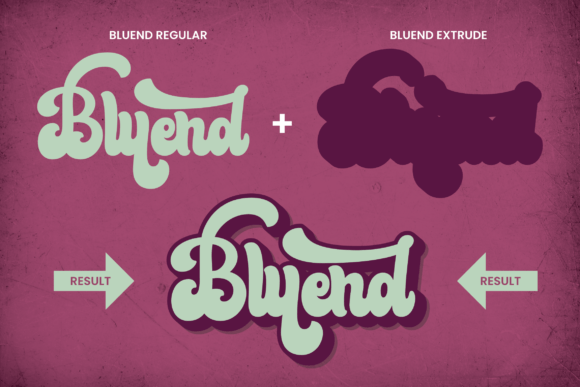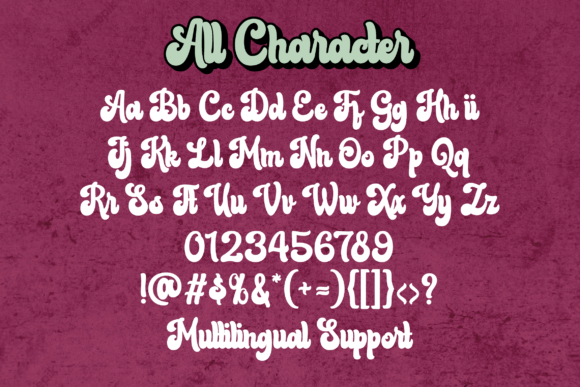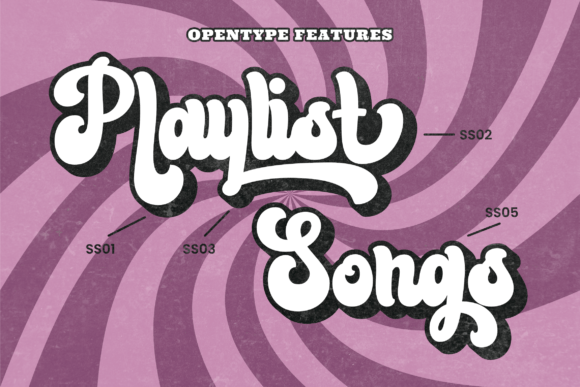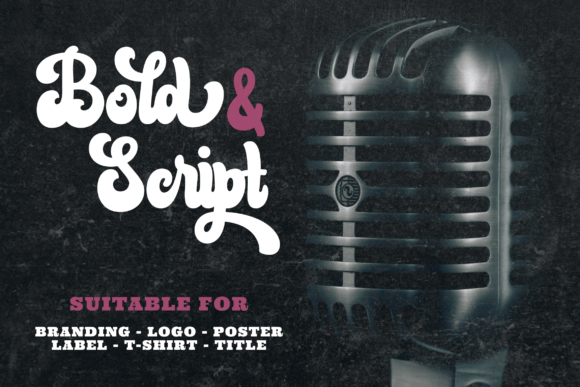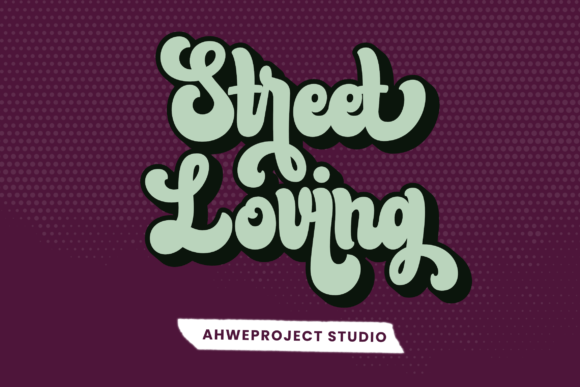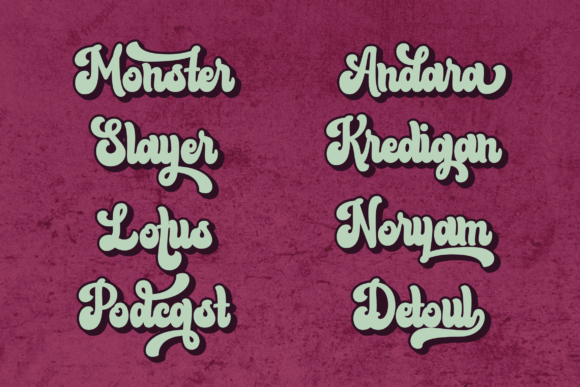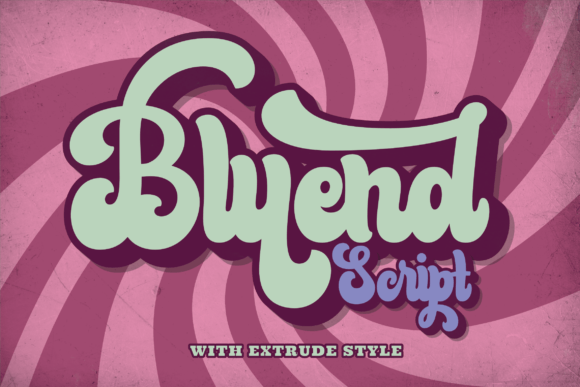
The Retro Revival: Uncovering the Charm of Bluend Font
I’ll never forget the struggle I faced while working on a vintage-themed project for a client. I had to find the perfect font that would transport my design back to the groovy era of the 70s. After hours of scouring through font libraries, I stumbled upon Bluend Font – a bold, retro-style script display font that instantly caught my attention. In this article, I’ll share my experience with Bluend Font, its features, and how to make the most of it in your designs.
A First Impression: What I Love About Bluend Font
Bluend Font is a real showstopper, with a retro and groovy vibe that’s perfect for a wide range of design ideas. Here are some things that I love about this font:
• ✨ Bold and confident: Bluend Font reads as strong, dynamic, and confident, making it perfect for headlines, titles, and statements.
• ✅ Nostalgic character: This font adds a ton of nostalgic character to your designs, transporting your audience back to the funky era of the 70s.
• 🎉 PUA encoded: Bluend Font is PUA encoded, which means you can access all glyphs and swashes with ease, giving you endless creative possibilities.
While Bluend Font is an amazing addition to any design project, there are a few quirks to consider:
• 🤔 Legibility at small sizes: As with many script fonts, Bluend Font may lose legibility at small sizes. It’s best used for headlines, titles, or larger text.
• ⚠️ Overuse of swashes: With so many swashes and glyphs available, it’s easy to get carried away. Be mindful of overusing them, as it can make your design look cluttered.
Bluend Font was inspired by the retro and groovy designs of the 1970s. The font’s creator wanted to capture the essence of that era, with its bold, confident, and dynamic letterforms. The result is a font that’s perfect for designers who want to add a touch of nostalgia to their work.
What is Bluend Font? Bluend Font is a bold, retro-style script display font with a groovy vibe, perfect for adding a touch of nostalgia to your designs.
Is Bluend Font PUA encoded? Yes, Bluend Font is PUA encoded, which means you can access all glyphs and swashes with ease.